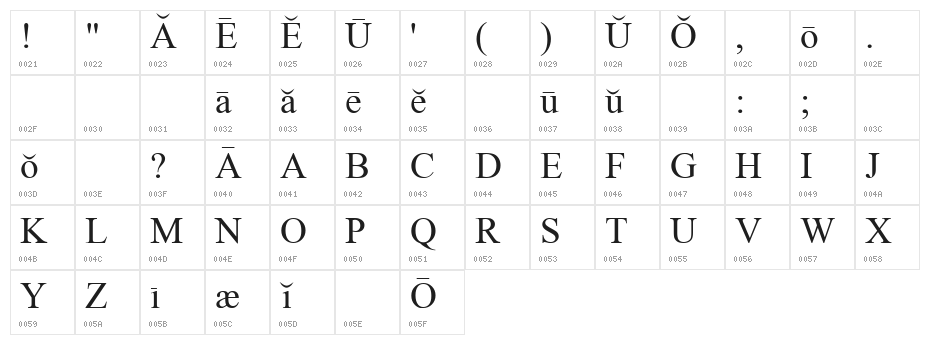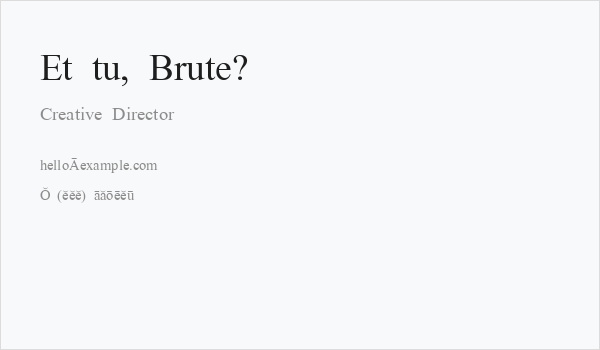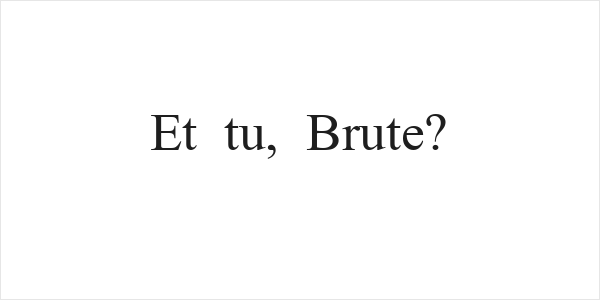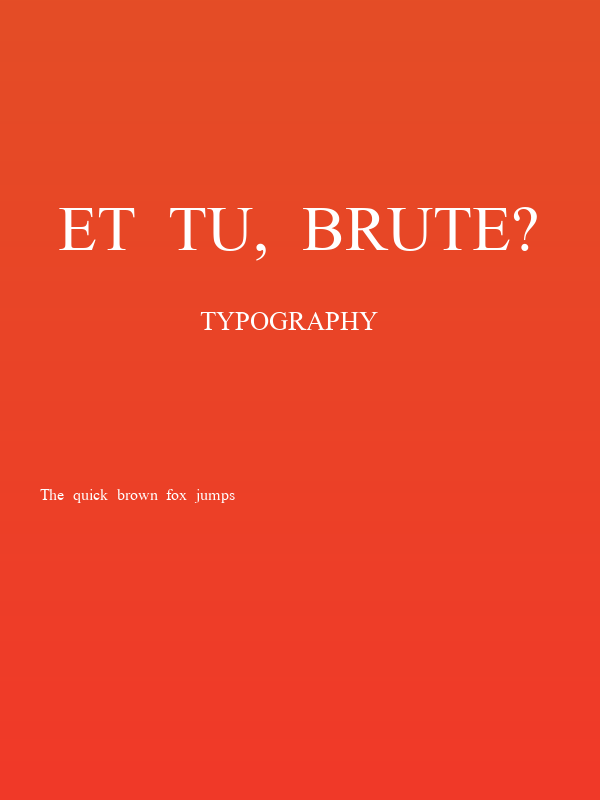
Et tu, Brute? Font
Et tu, Brute? Description
This font exhibits a classic serif style with a refined and elegant appearance. The serifs are pronounced, providing a traditional and formal look. The uppercase letters are well-proportioned, with a slight contrast in stroke thickness that adds to the sophistication of the design. The lowercase letters maintain a consistent style, with smooth curves and a balanced structure. The font includes a range of accented characters, enhancing its versatility for multilingual use. The special characters are designed to complement the overall style, ensuring a cohesive appearance across all text elements.
| Use Case | Headlines, Body text, Editorial design |
| Proposed Projects | Ideal for editorial design, book covers, formal invitations, and branding projects that require a touch of sophistication. |